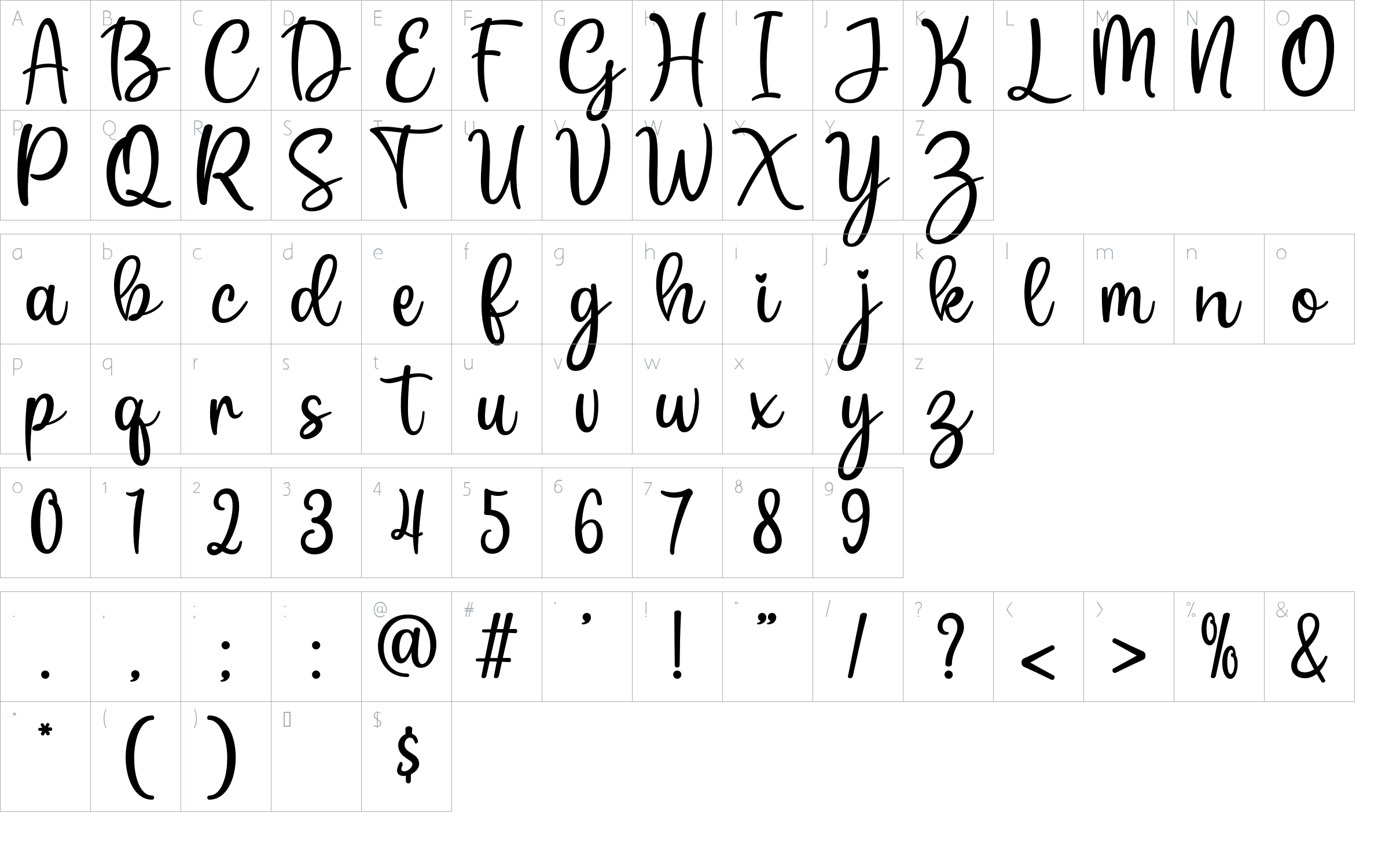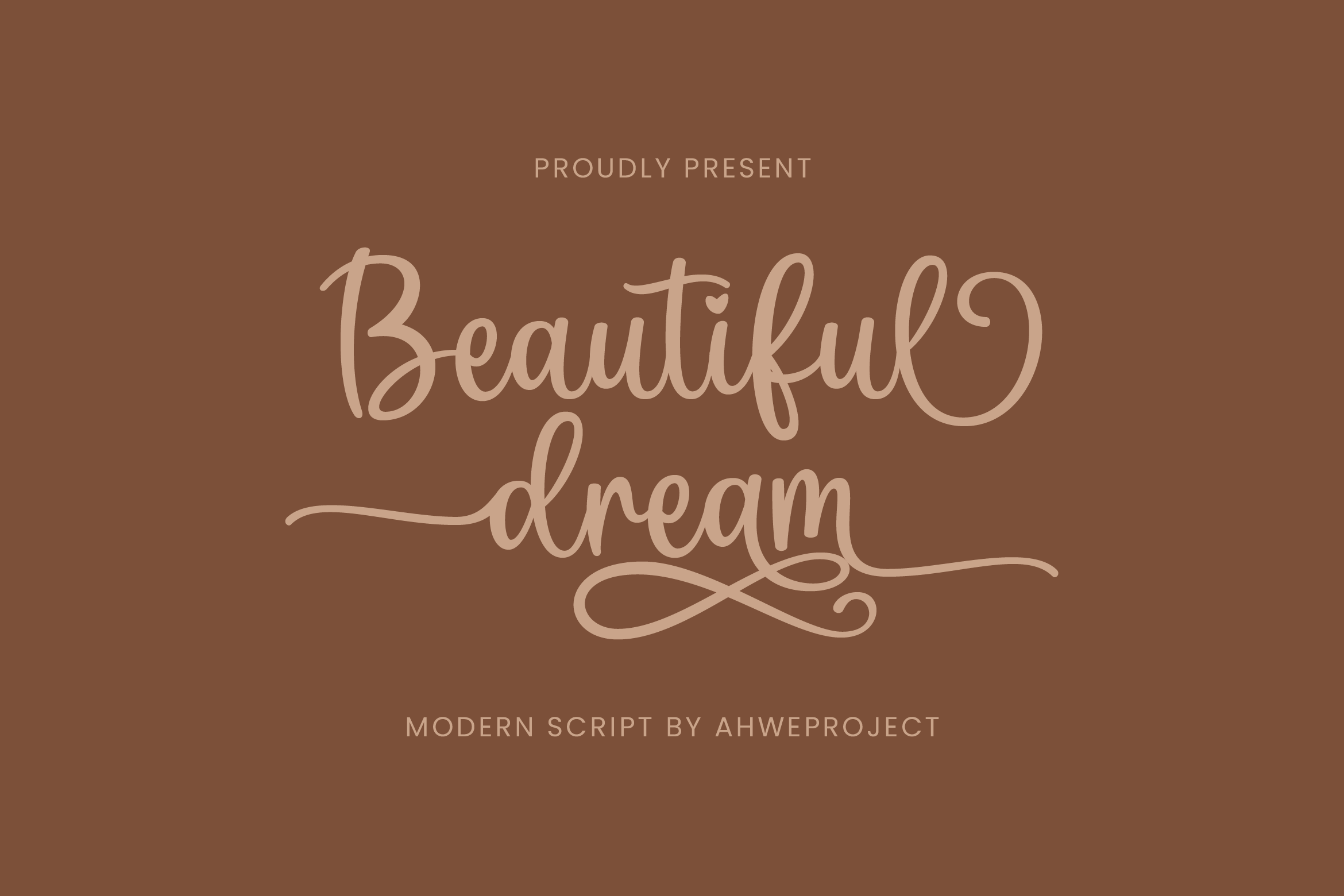
Beautiful Dream - Romantic And Sweet Calligraphy Font
About Beautiful Dream - Romantic And Sweet Calligraphy
Beautiful Dream is a romantic and sweet calligraphy typeface with characters that dance along the baseline. It has a casual, yet elegant touch. This font is PUA encoded which means you can access all of the glyphs and swashes with ease!
Beautiful Dream is perfect for branding projects, logo, wedding designs, social media posts, advertisements, product packaging, product designs, label, photography, watermark, invitation, stationery and any projects that need handwriting taste.